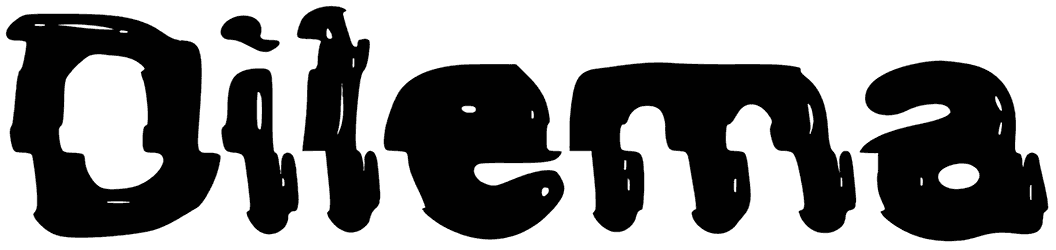
d Dilema Font
Are you looking for a wave font that will breathe new life into your designs? Replace your standard writing with d Dilema; the difference is night and day. This distorted font has a broken line in the middle of each letter, which creates inconsistency and movement.